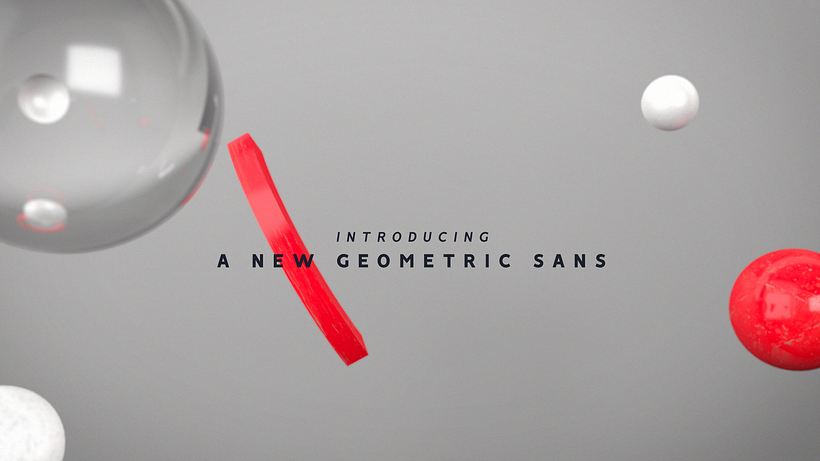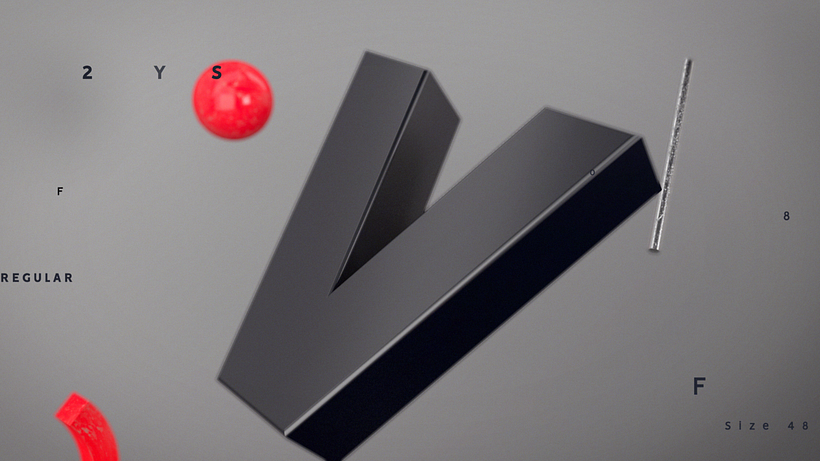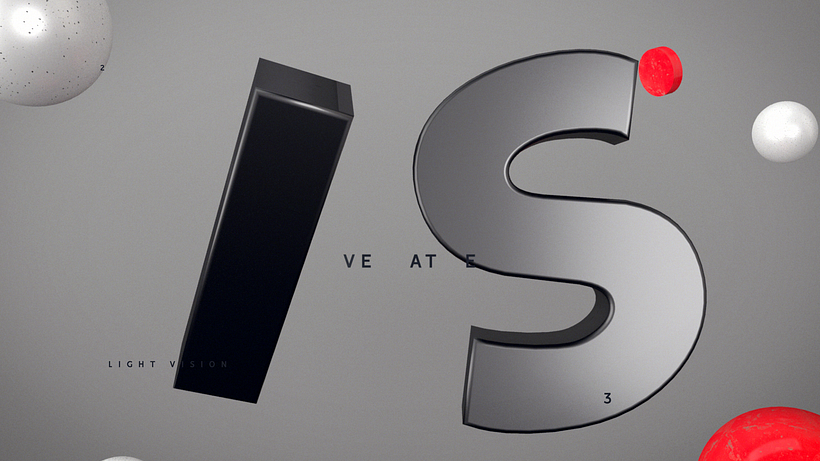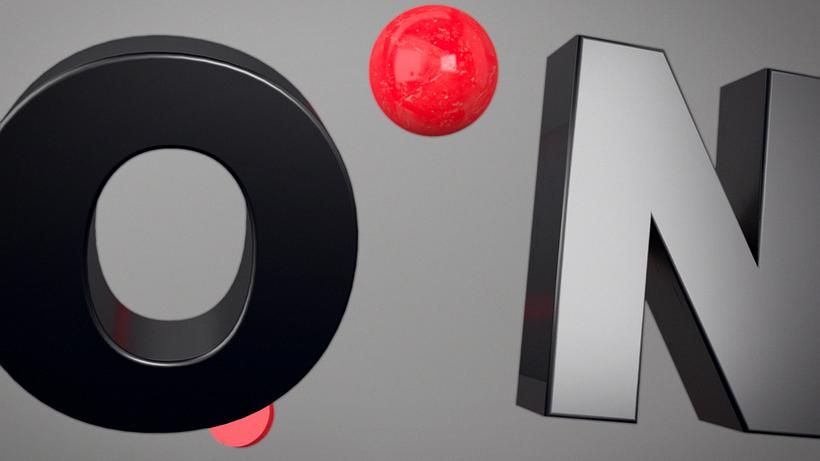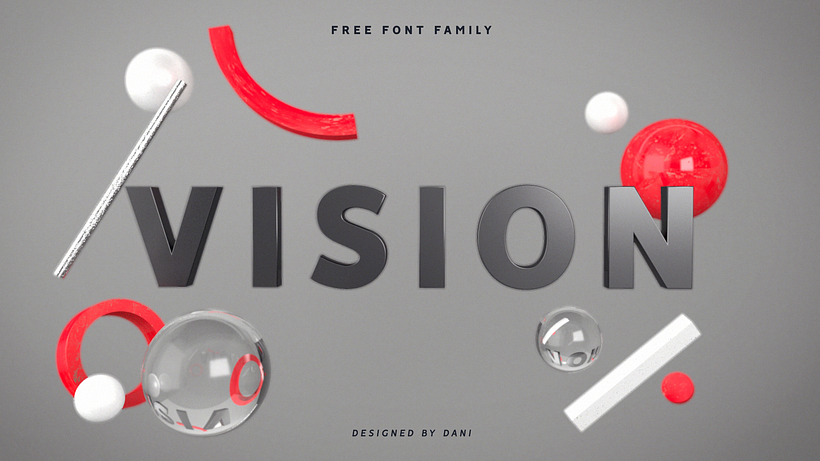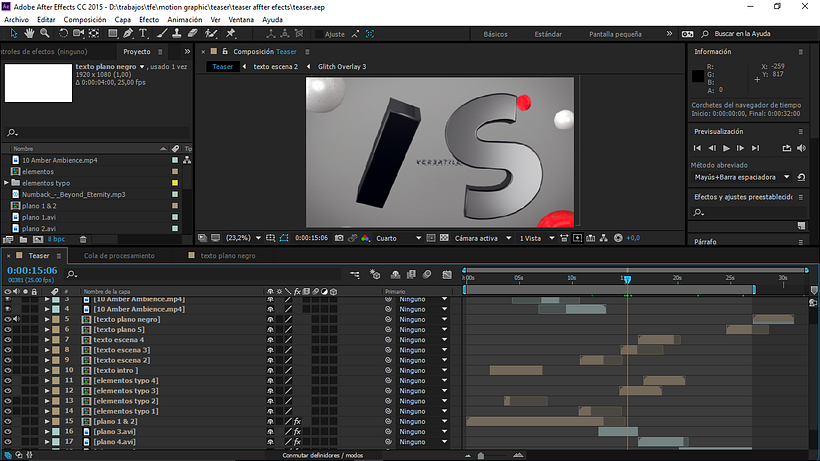
VISION Free Font - Teaser
Take an idea one step further, following the philosophy of the Russian artist El Lisitski. It was necessary to bring a new point of view to the world of typographies, beyond just its design, that's why a promotional video was made, in order to show the typography in a different way. All of this is linked to the aesthetics and philosophy of the work of our main reference, El Lisitski.